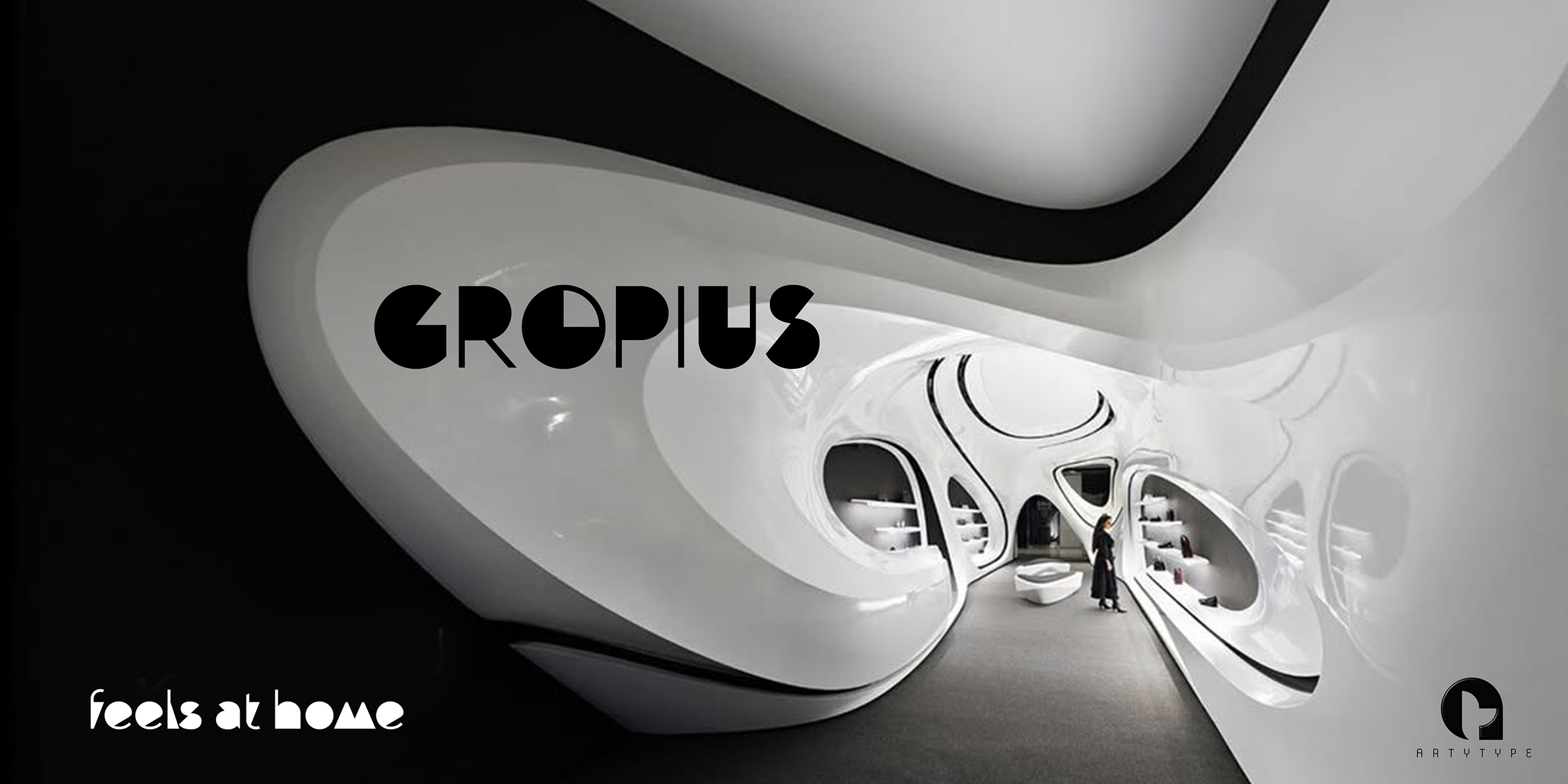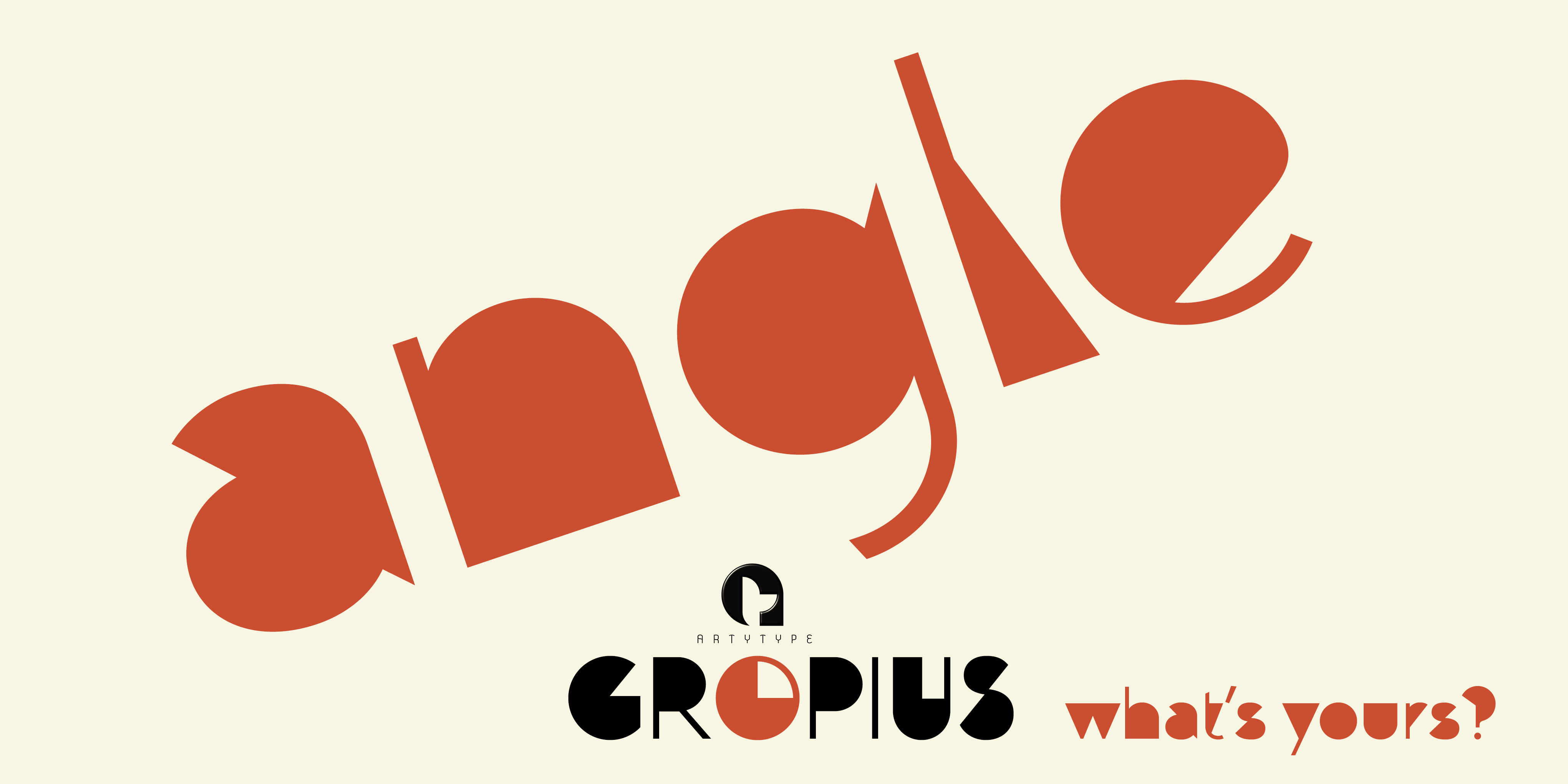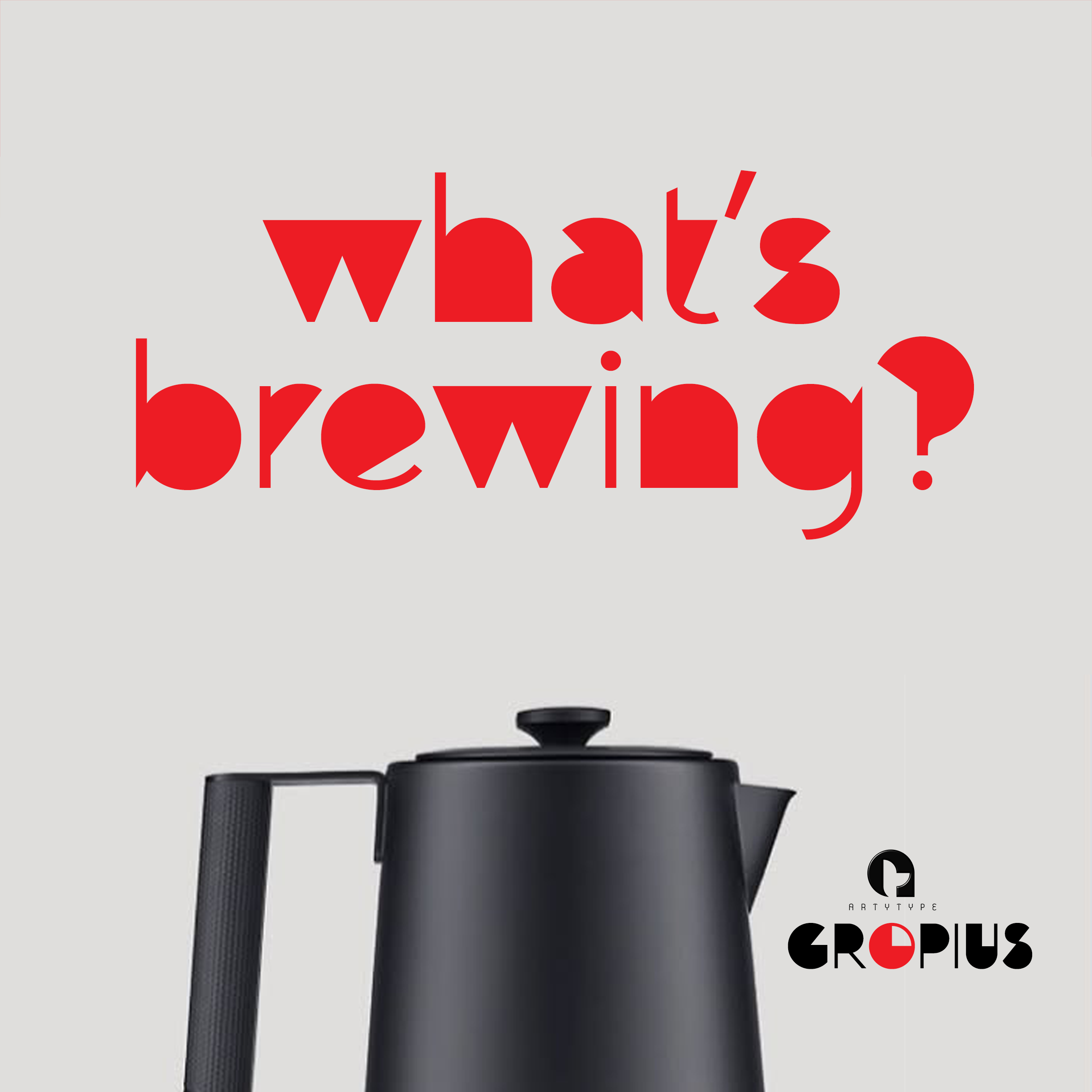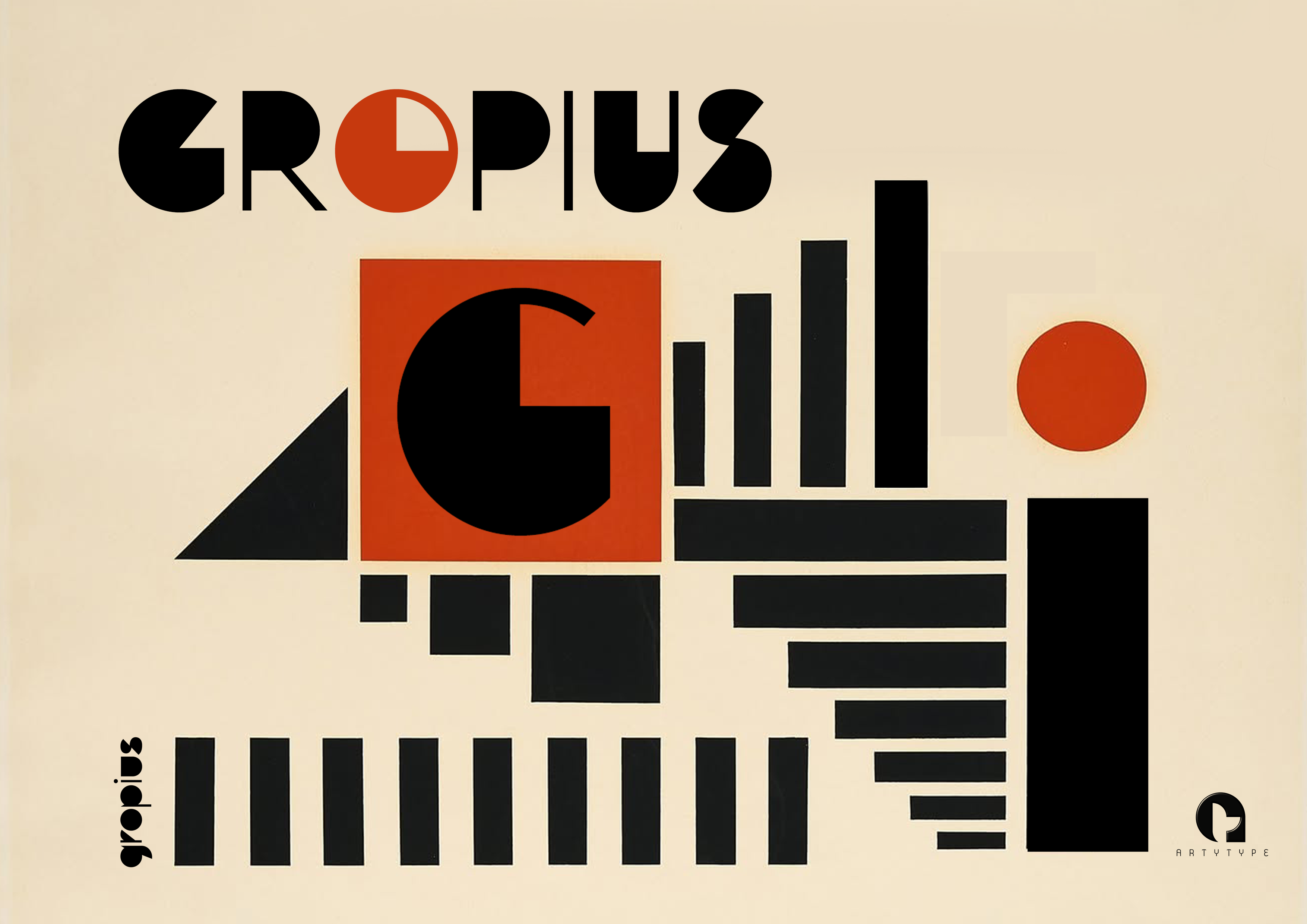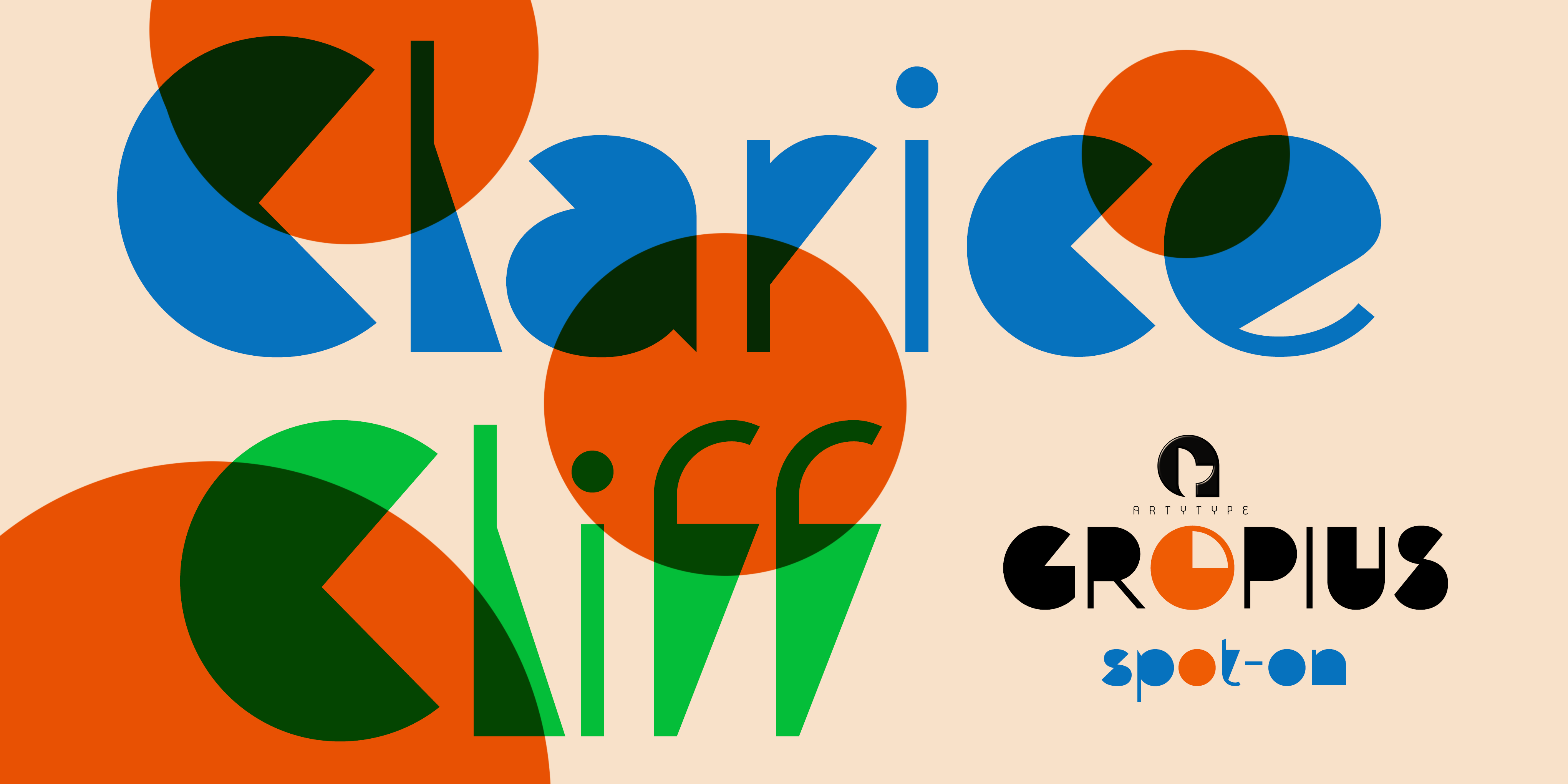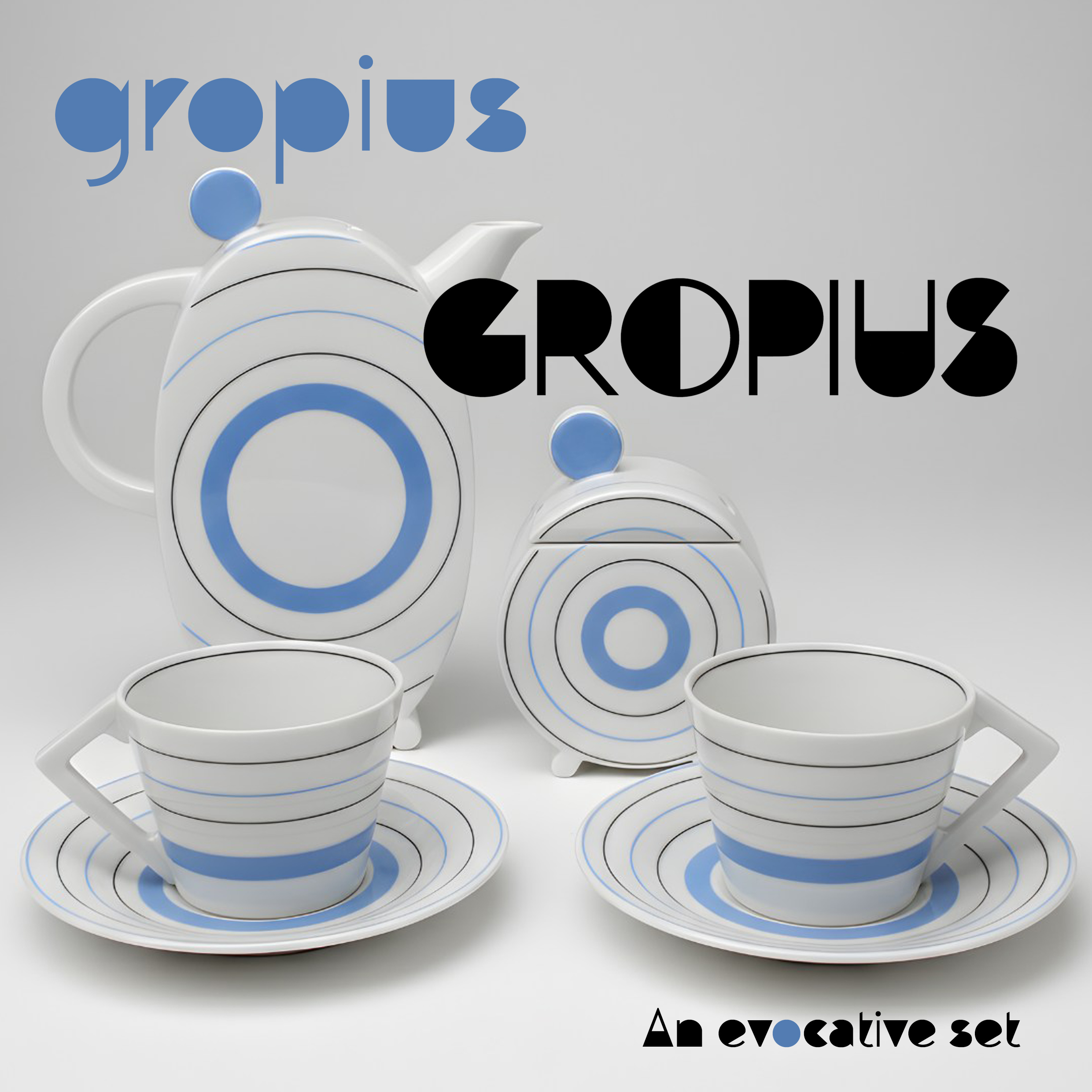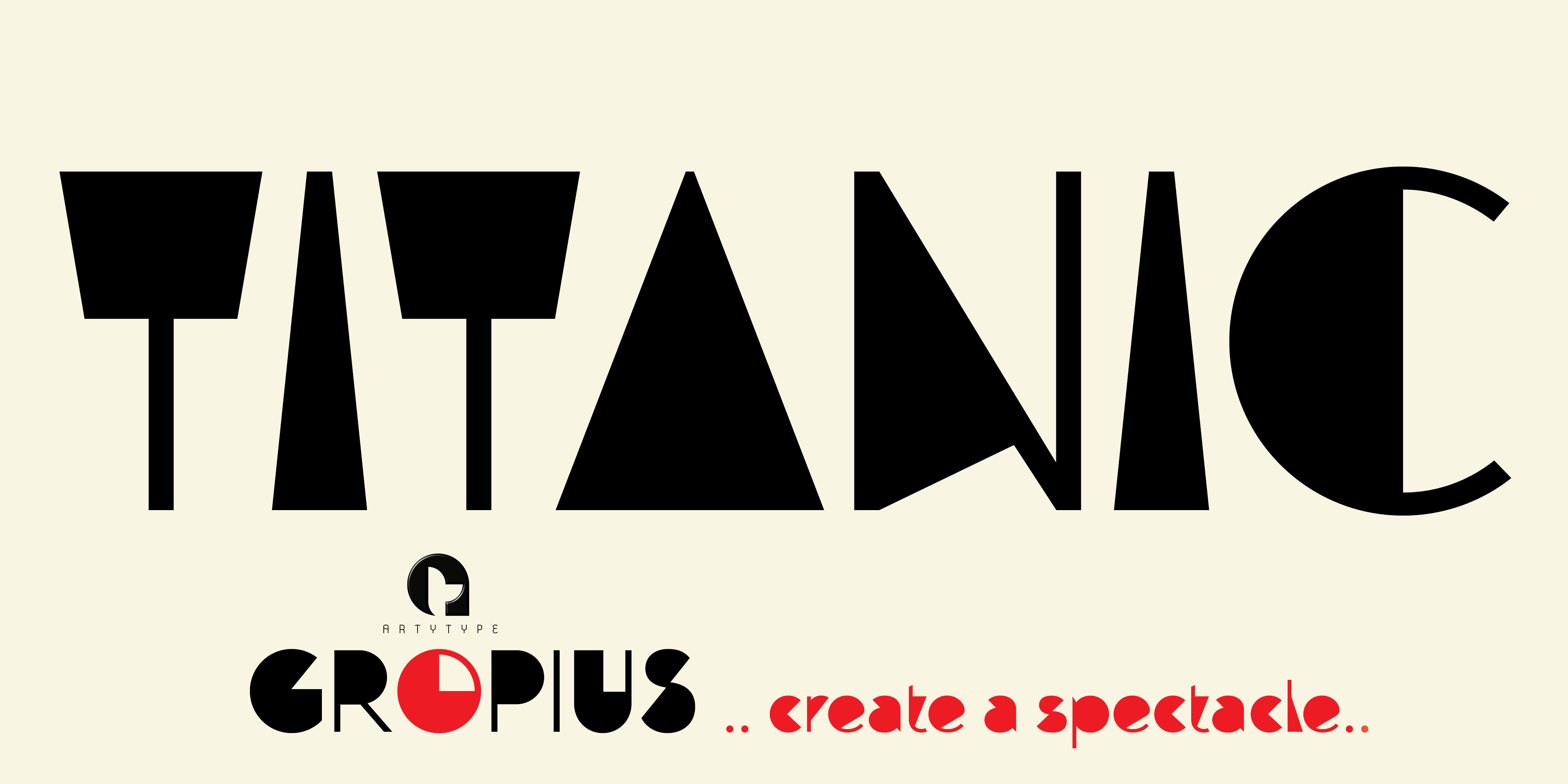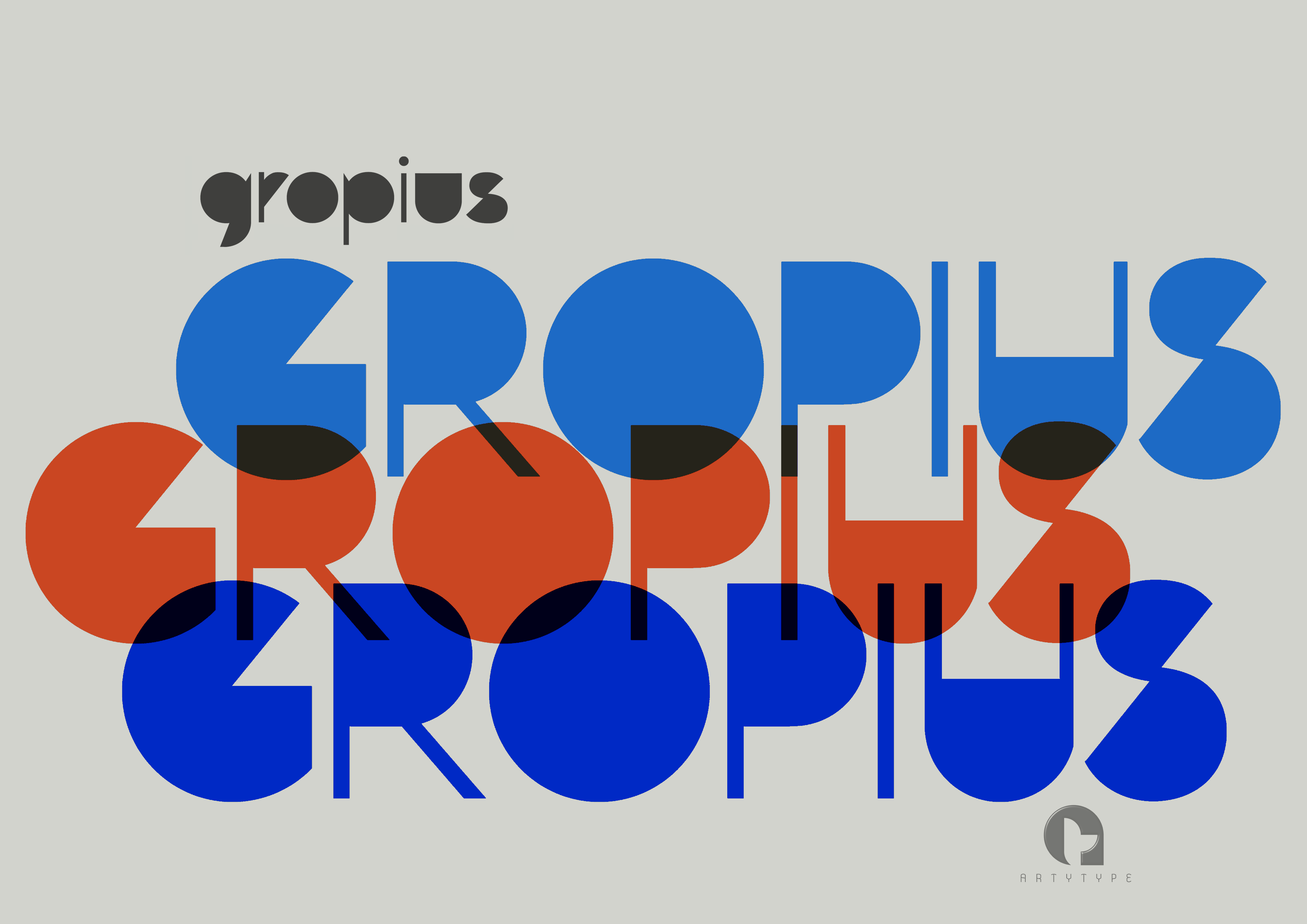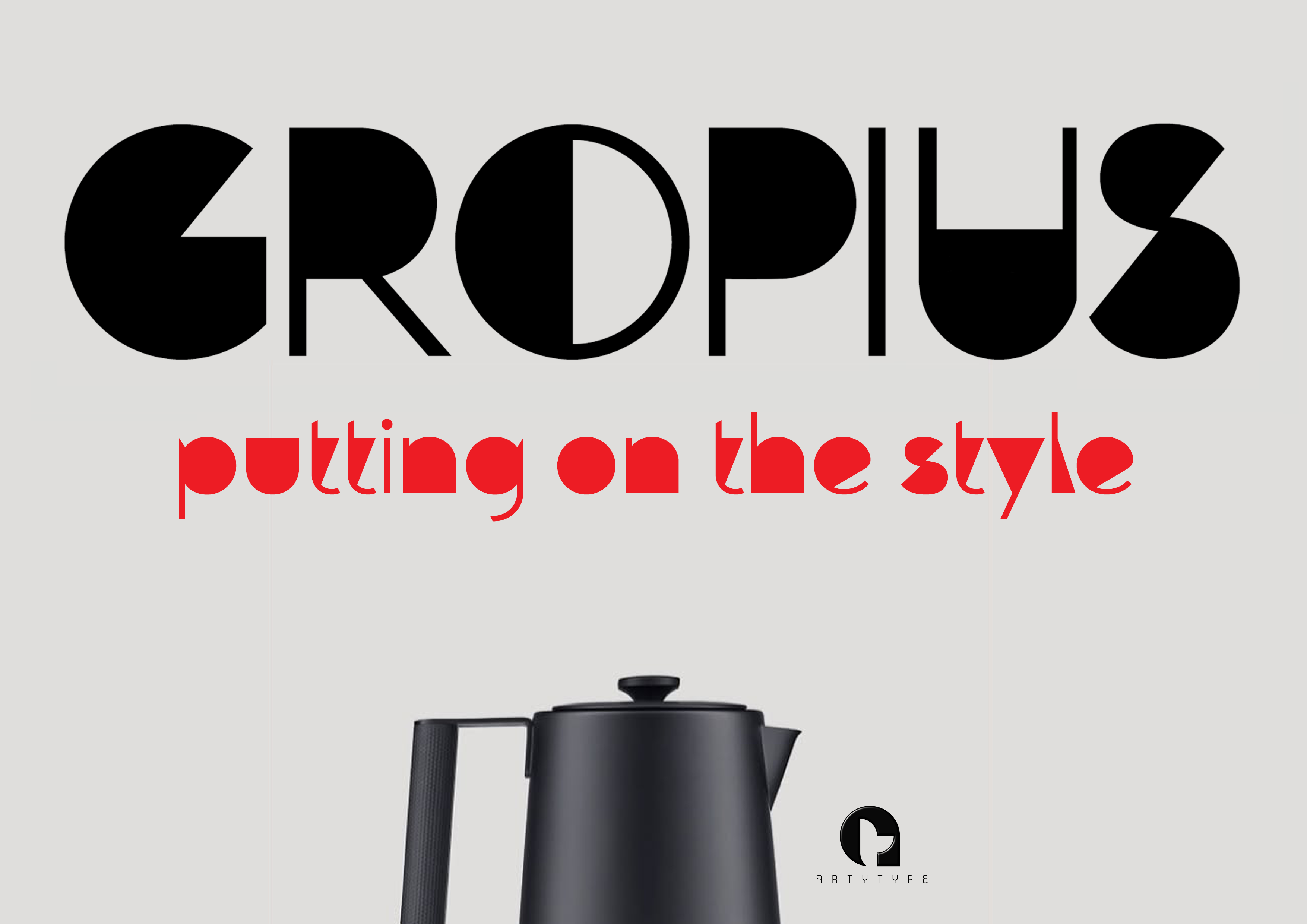
Gropius
Gropius is single-weight display font endowed with strong graphic qualities, offering a stylish, stand-out alternative to most regular sans serif typefaces on the market.
There’s also a somewhat serendipitous 20th century aspect to the solid ‘fill’ styling, which in turn has inspired the naming... done purely as a respectful homage to the late Walter Gropius, founder of the infamous Bauhaus school of modernism, which went on to help define that enduring decade within The Arts.
The basic template started with a ‘fill’ on the ‘Trans Sanz Light’ character set, and consequently both fonts automatically complement each other should you need some sympathetic pairing.
The default set also comes with an interesting array of alternate characters, helping to vary and personalise your word settings. Also, as with other ArtyType fonts, such stylish characters provide the option to stand alone, potentially acting as logos or icons in their own right.